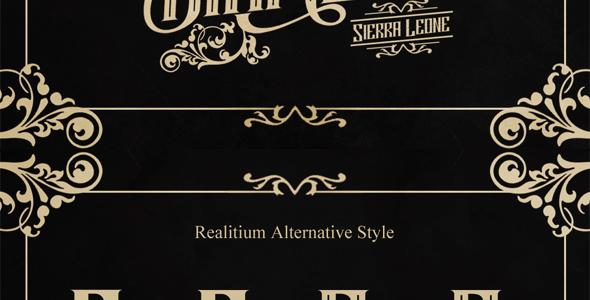
Realitium Font
Realitium is a vintage typeface it’s perfect for latterhead, vintage apparel design, headline, logotype, poster, card, and etc. File Include